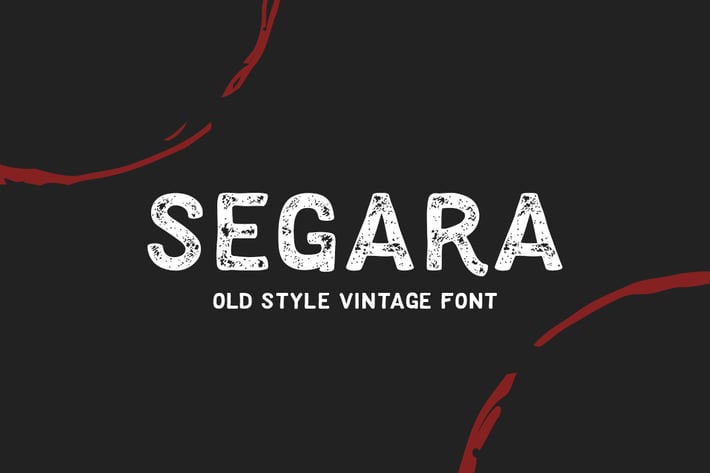
Segara Font
Segara Font is a Vintage Rustic font inspired by vintage style of letterpress and silk screen, this style is great for poster, t-shirt, logo type, and many more.